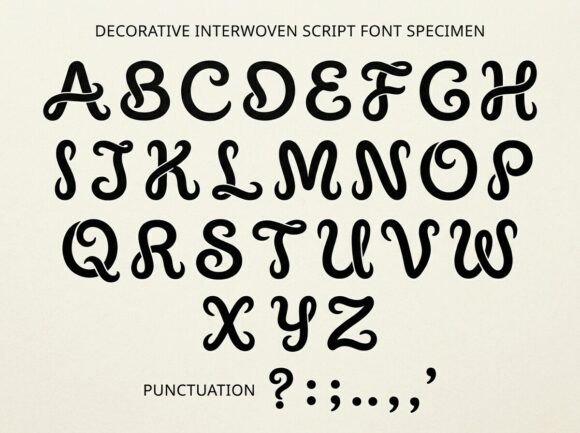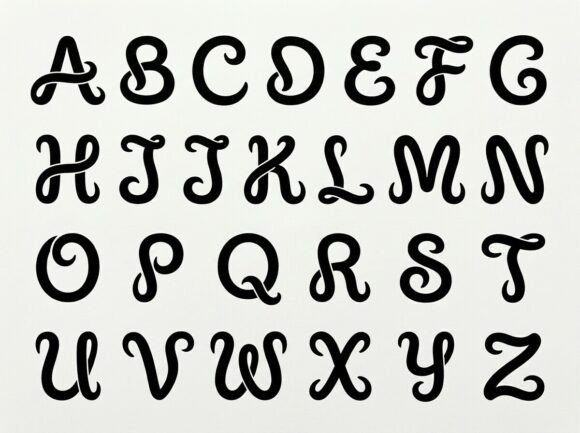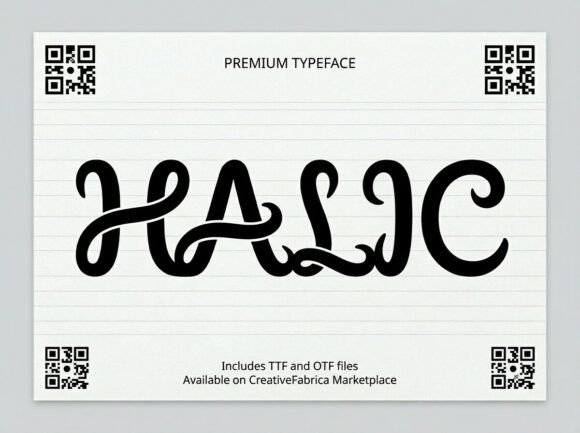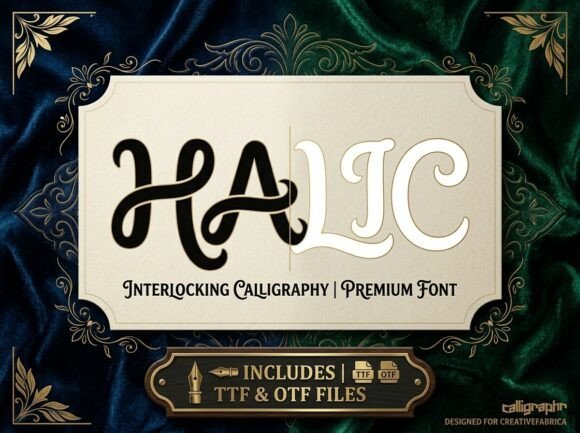
Introduction to Halic Font
β€œElevate your creative projects with a decorative display font designed to be the centerpiece of any layout.
With its distinct artistic elements and strong character, it is perfect for creators who want to break away from the ordinary From bold headlines to creative branding and packaging delivers a high-end, professional aesthetic without compromising on personality.
Halic Font offers exceptional quality and versatility, making it a valuable addition to your design toolkit. Whether you’re creating for personal projects or commercial use, Halic Font delivers professional results.